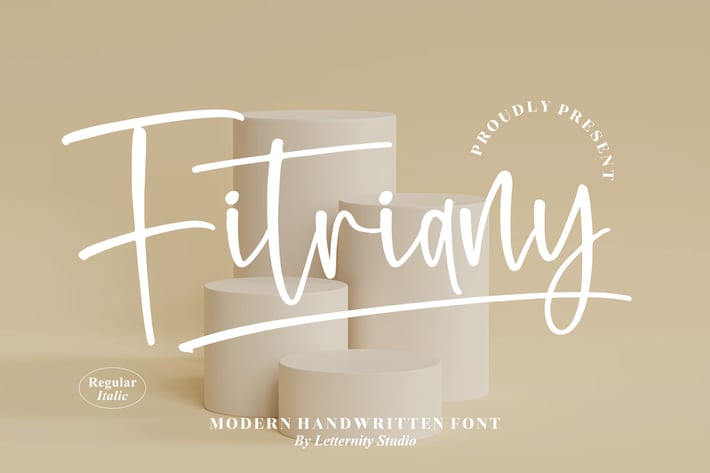
Fitriany Modern Handwritten Font
Fitriany is a modern handwritten script font designed to elevate both digital and printed creative projects. With its elegant curves and natural handwriting feel, this font is ideal for branding, social media posts, posters, invitations, business cards, and various personal or commercial design needs.
Modern handwritten style
Smooth strokes & natural flow
Suitable for both headings and body text
Ideal for branding, social media, quotes, and packaging
Includes Regular & Italic styles